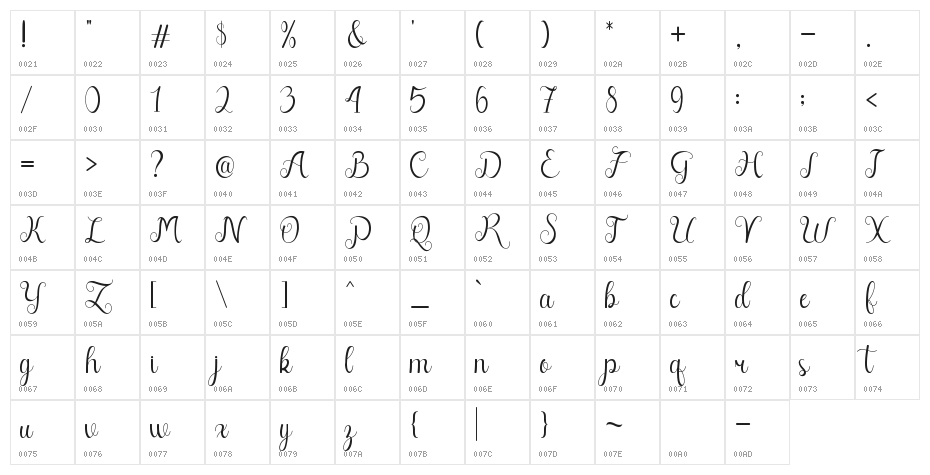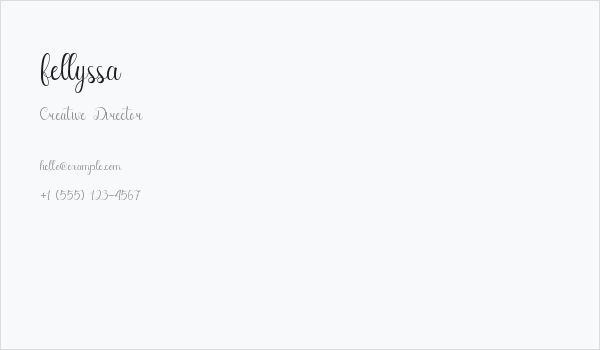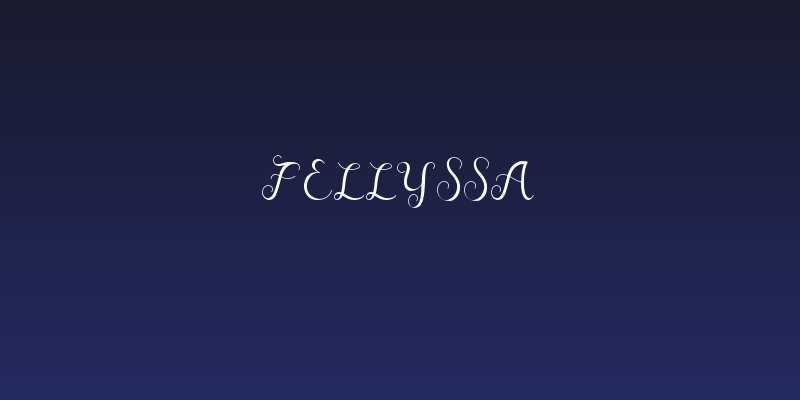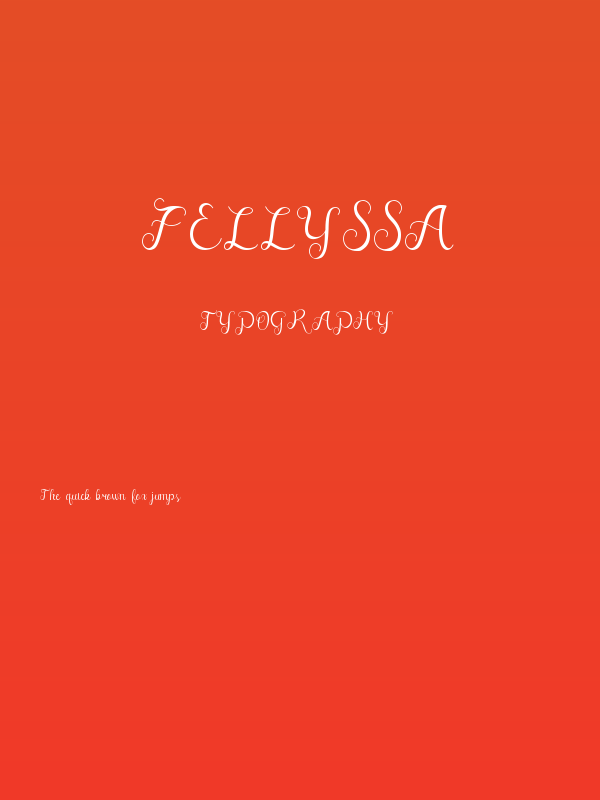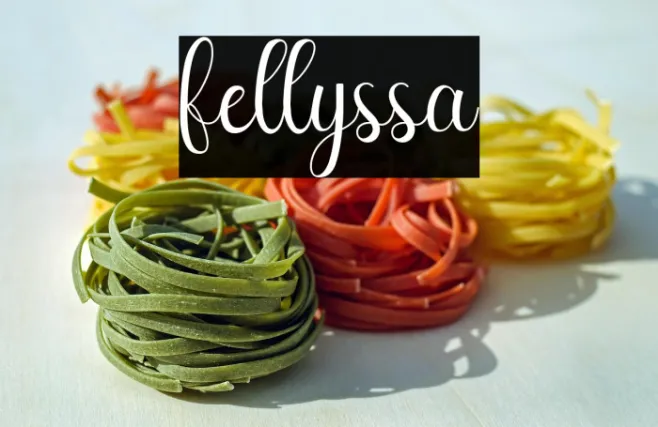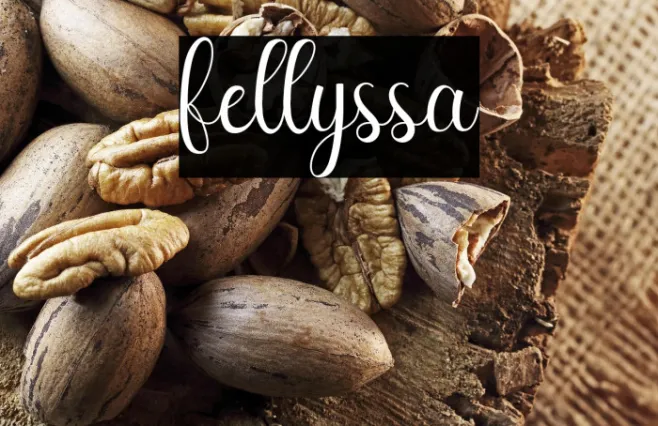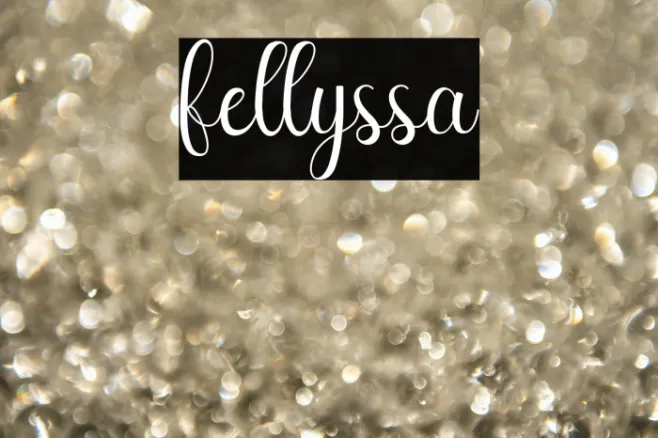
fellyssa Font
fellyssa Description
This font features an elegant and flowing script style, characterized by its intricate swirls and loops. The uppercase letters are particularly ornate, with each character exhibiting unique flourishes that add a touch of sophistication. The lowercase letters maintain a consistent flow, with smooth connections between characters that enhance readability while preserving the decorative nature. Numbers are styled to match the overall aesthetic, with slight embellishments that make them stand out. Special characters are thoughtfully designed, ensuring they complement the alphabetic characters seamlessly. This font exudes a sense of grace and charm, making it ideal for projects that require a touch of elegance.